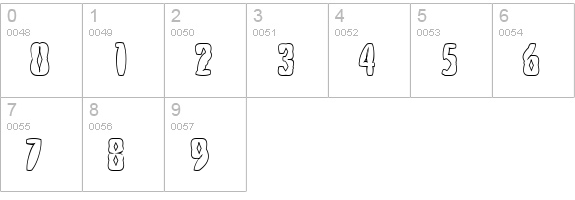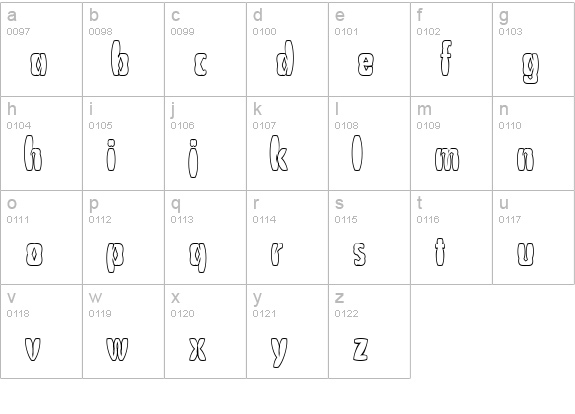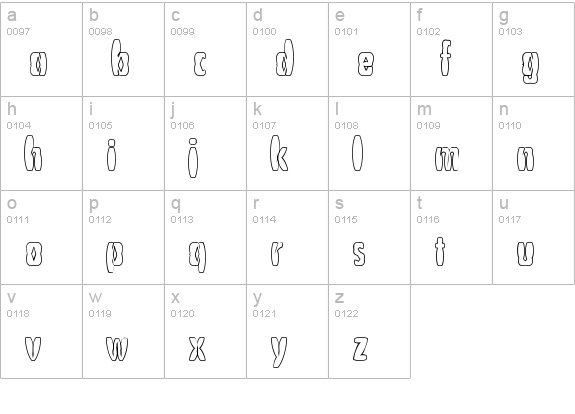
PuffedRice font is a whimsical and playful typeface that will add a touch of charm to any project. With its rounded edges and puffy appearance, this font exudes a sense of fun and lightheartedness. PuffedRice is perfect for designs that need a friendly and inviting look, whether it's a children's book, a party invitation, or a creative branding project. The best part? PuffedRice font is available for free download at FontsMarket.com. This means that you can easily access this delightful font and use it in your projects without any hassle. So why not add a sprinkle of magic to your designs with PuffedRice font today?